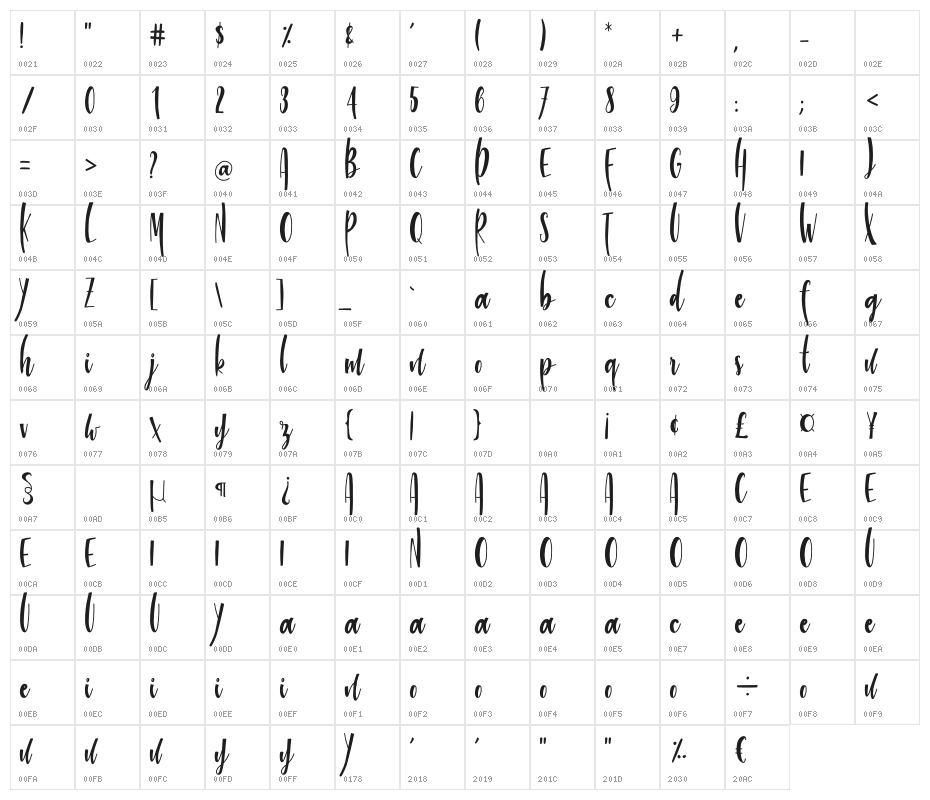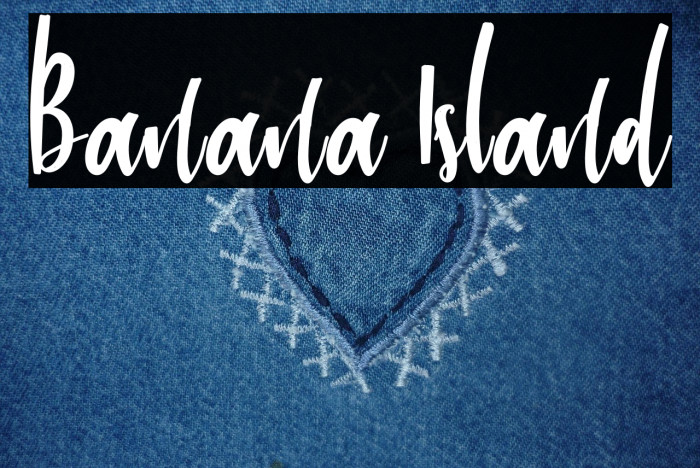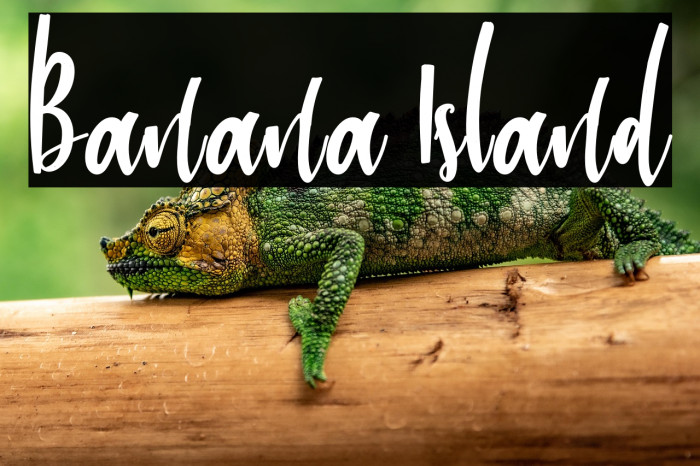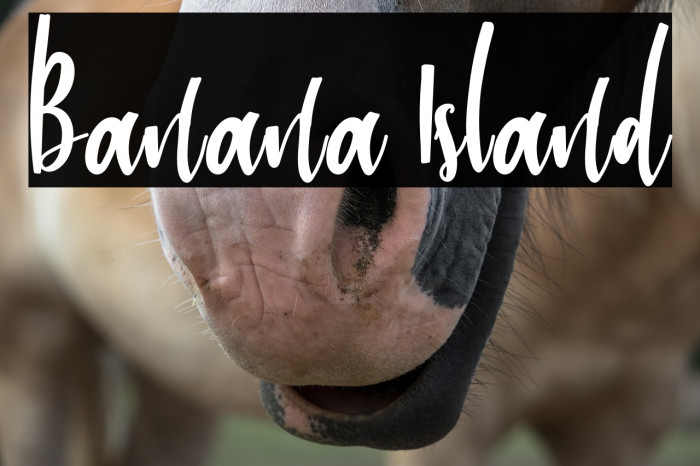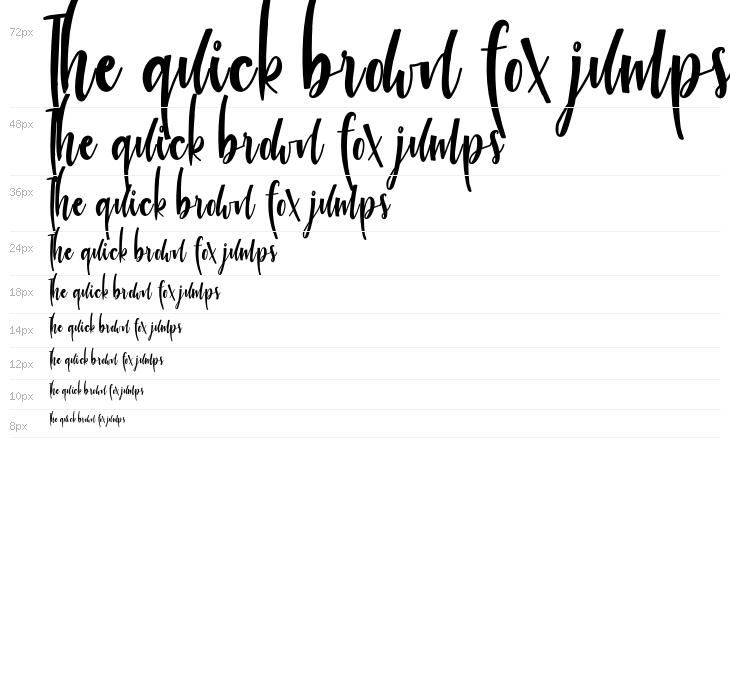
Banana Island Font
Banana Island Description
This font exudes a lively and energetic vibe with its bold, sweeping strokes and playful curves. The uppercase letters are tall and slender, with a slight slant that adds a dynamic feel. The lowercase letters maintain a consistent flow, featuring rounded edges and a casual, handwritten style. Numbers are equally expressive, with varying stroke widths that enhance their visual appeal. Special characters are creatively integrated, maintaining the font's overall whimsical aesthetic. This font is perfect for projects that require a touch of personality and flair.
Proposed ProjectsIdeal for greeting cards, playful branding, social media graphics, and creative posters.